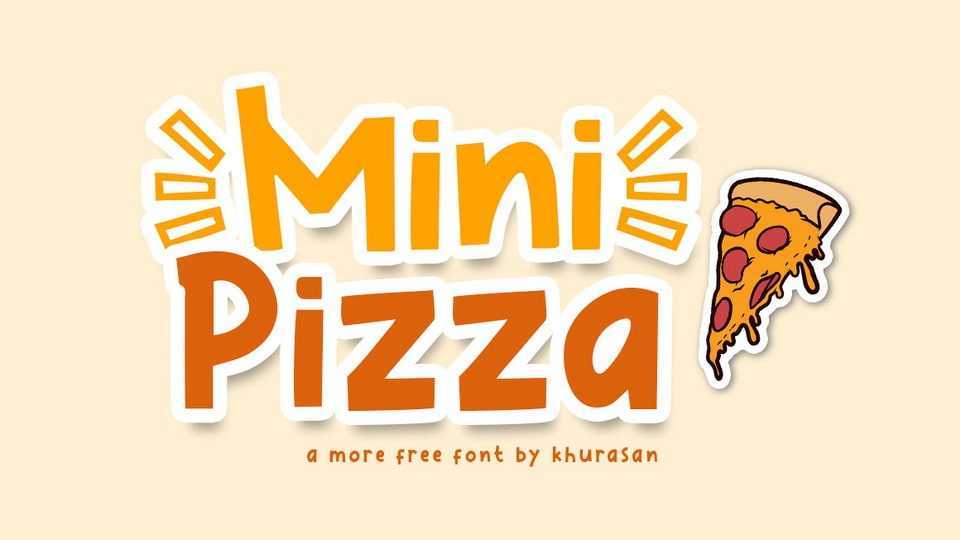
Download Mini Pizza font, a funny and playful display typeface. Mini Pizza is perfect for posters, logos, magazines, book covers, banners, and many more lovely designs.